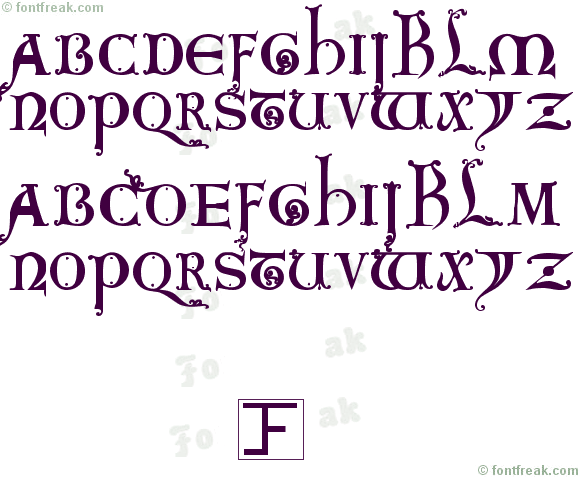
King Arthur
The King Arthur font by J. Fordyce is a unique display typeface that captivates with its medieval-inspired design. Released in 1993, this freeware font is generated using Fontographer 3.5 and showcases an imaginative combination of serif and decorative elements. The strokes of the King Arthur font exhibit a varied weight, lending a sense of dynamism to each character. The contrast between thick and thin lines is prominent, enhancing its visual appeal while maintaining readability. The intricate details, including whimsical curves and playful flourishes, evoke a sense of fantasy and adventure, making it particularly well-suited for themes related to chivalry and myth.
This font shines in specific use cases, particularly in wedding invitations where its romantic and regal flair can set the perfect tone. Additionally, it works wonderfully for movie posters, especially those in the fantasy genre, as it captures the essence of epic tales. Restaurant menus that wish to evoke a medieval or themed dining experience can benefit from its distinctive style. Graphic novels and fantasy book covers are also ideal platforms for the King Arthur font, allowing creators to immerse readers in a magical world.
Targeting graphic designers, small business owners, and content creators, the King Arthur font offers versatility while allowing for creative expression. Its enchanting appearance is bound to draw attention, making it a favorite among those looking to make a bold statement. The combination of its historical inspiration and modern usability makes the King Arthur font a standout choice. For those intrigued by its distinctive character and charm, the King Arthur font free download is readily available, providing an opportunity to elevate any design project with a touch of whimsy and elegance.